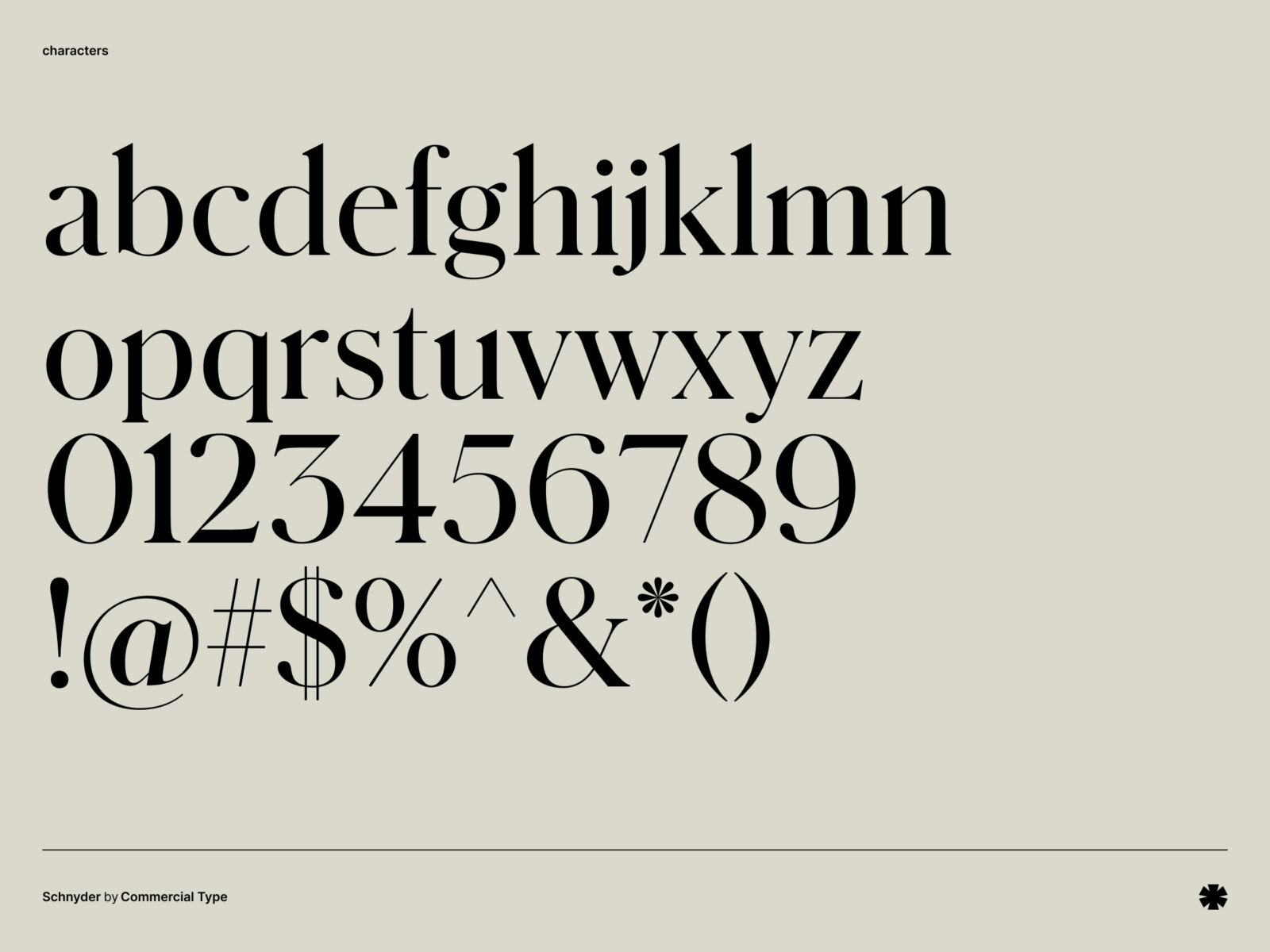
Schnyder
by Commercial Type
Schnyder, originally part of the New York Times Style Magazine redesign, was designed by Berton Hasebe, Christian Schwartz, and Miguel Reyes. With precise lines and thick and thin strokes that are reminiscent of Swiss pen lettering, Schnyder is a beautiful serif typeface with organic-feeling glyphs and a great variation in width between characters, adding to the unique flair.